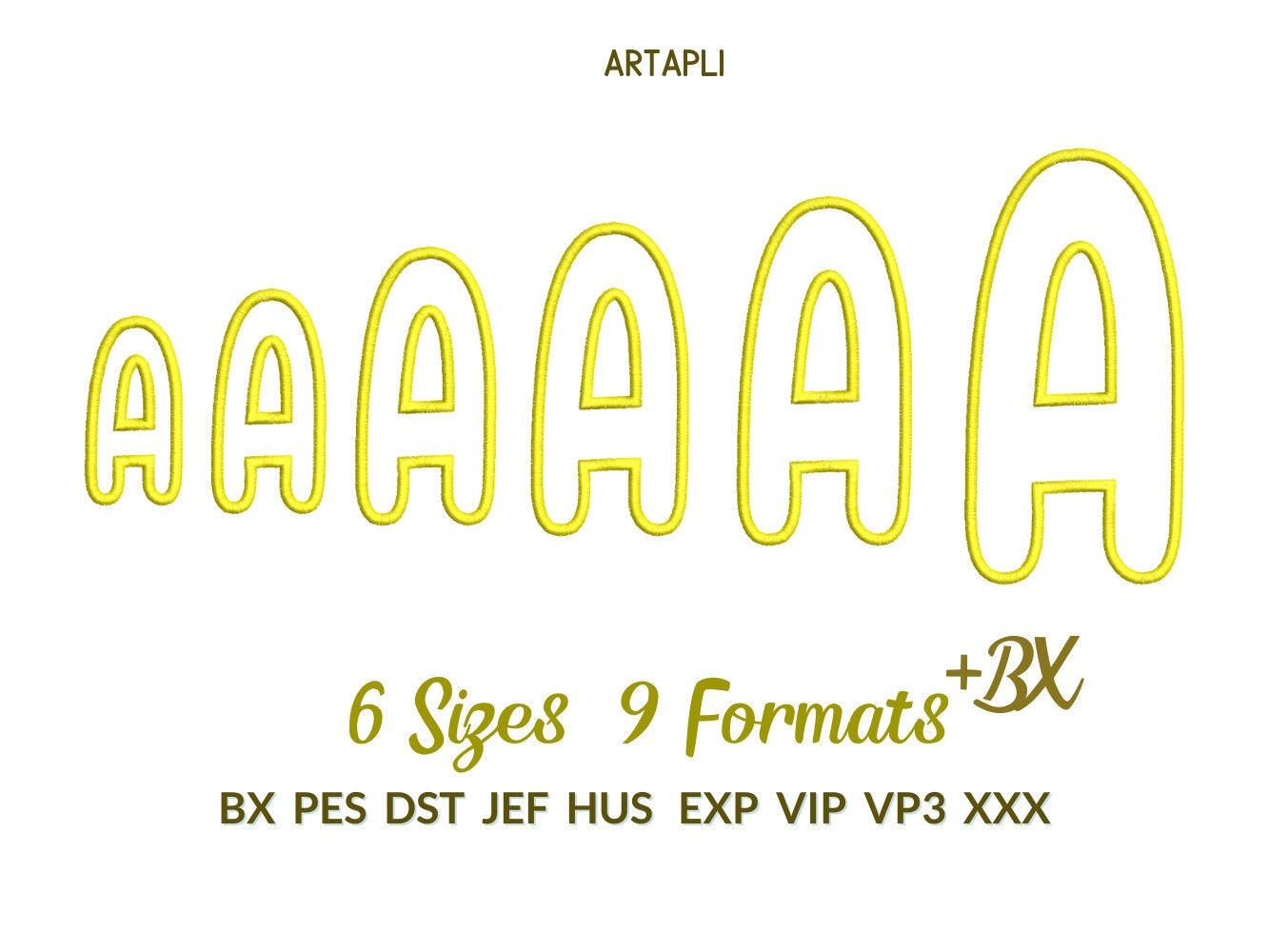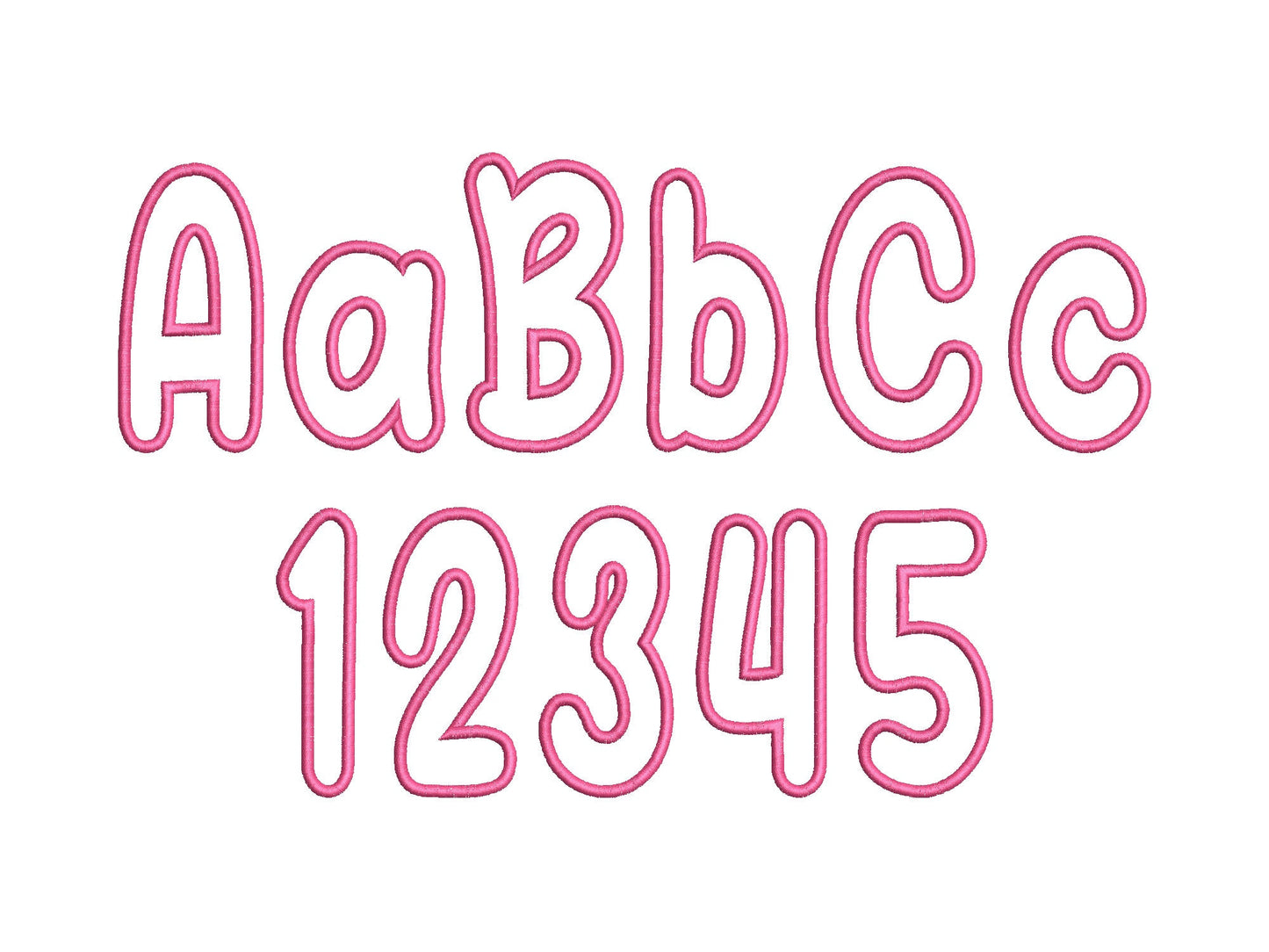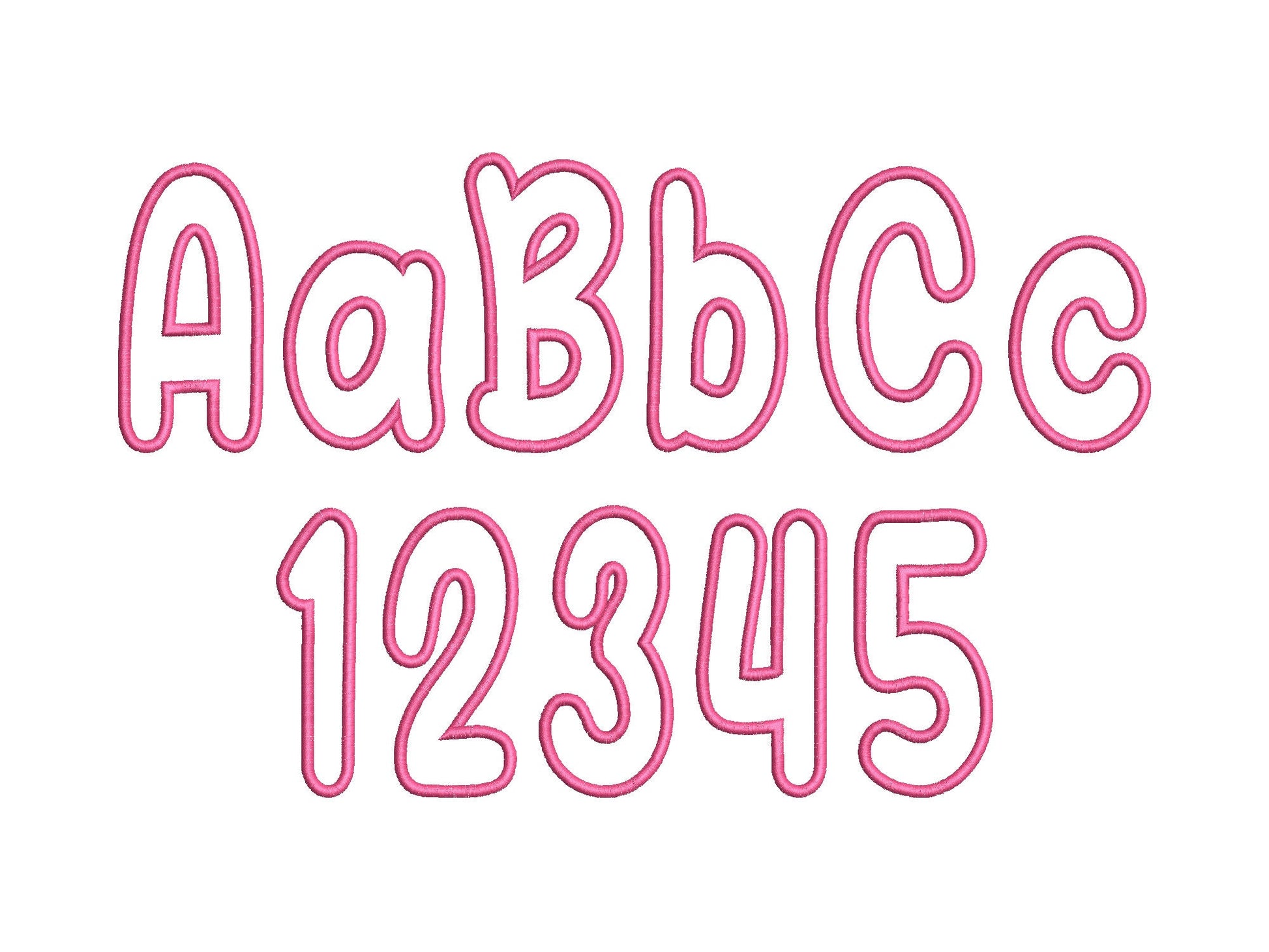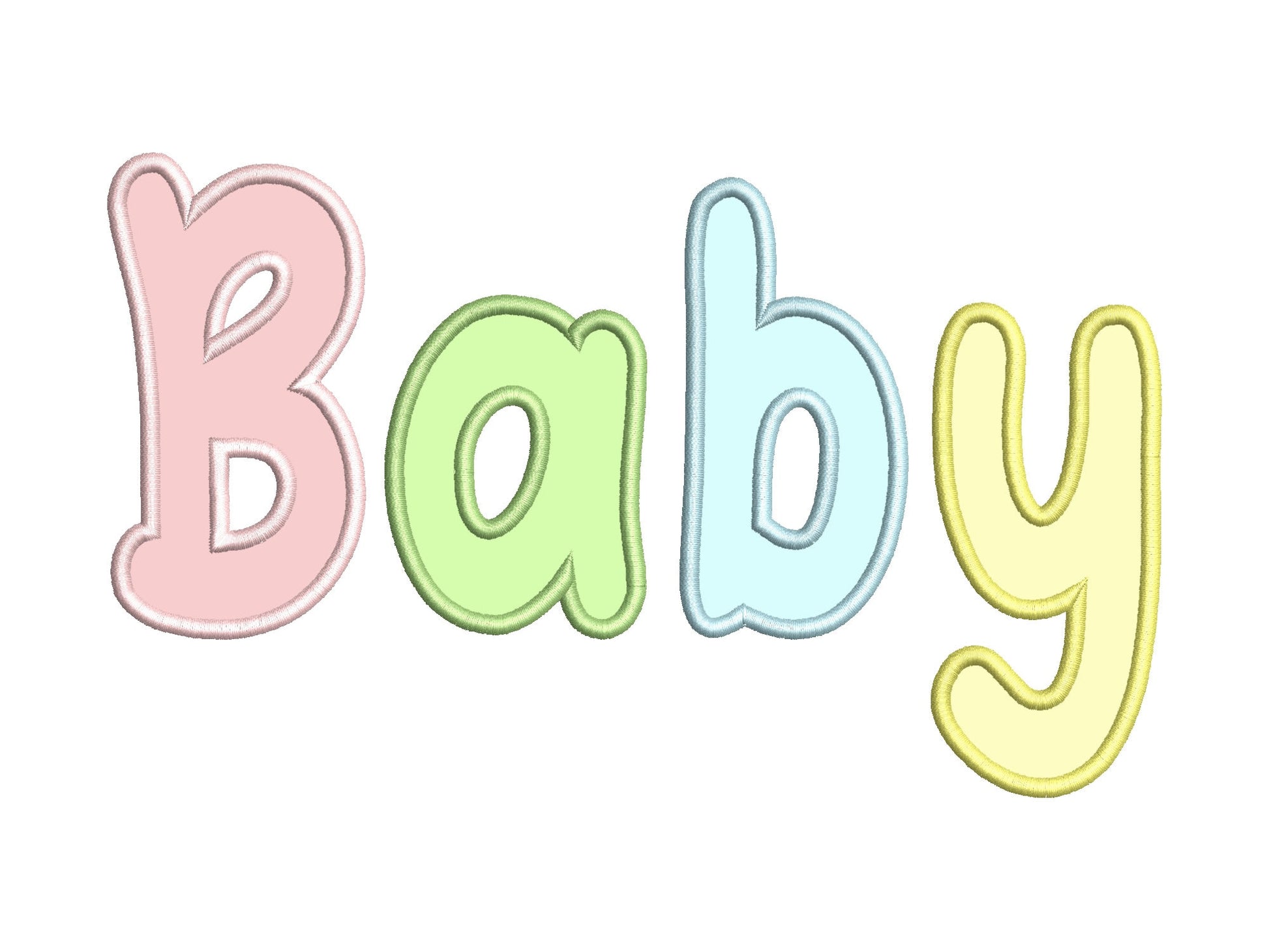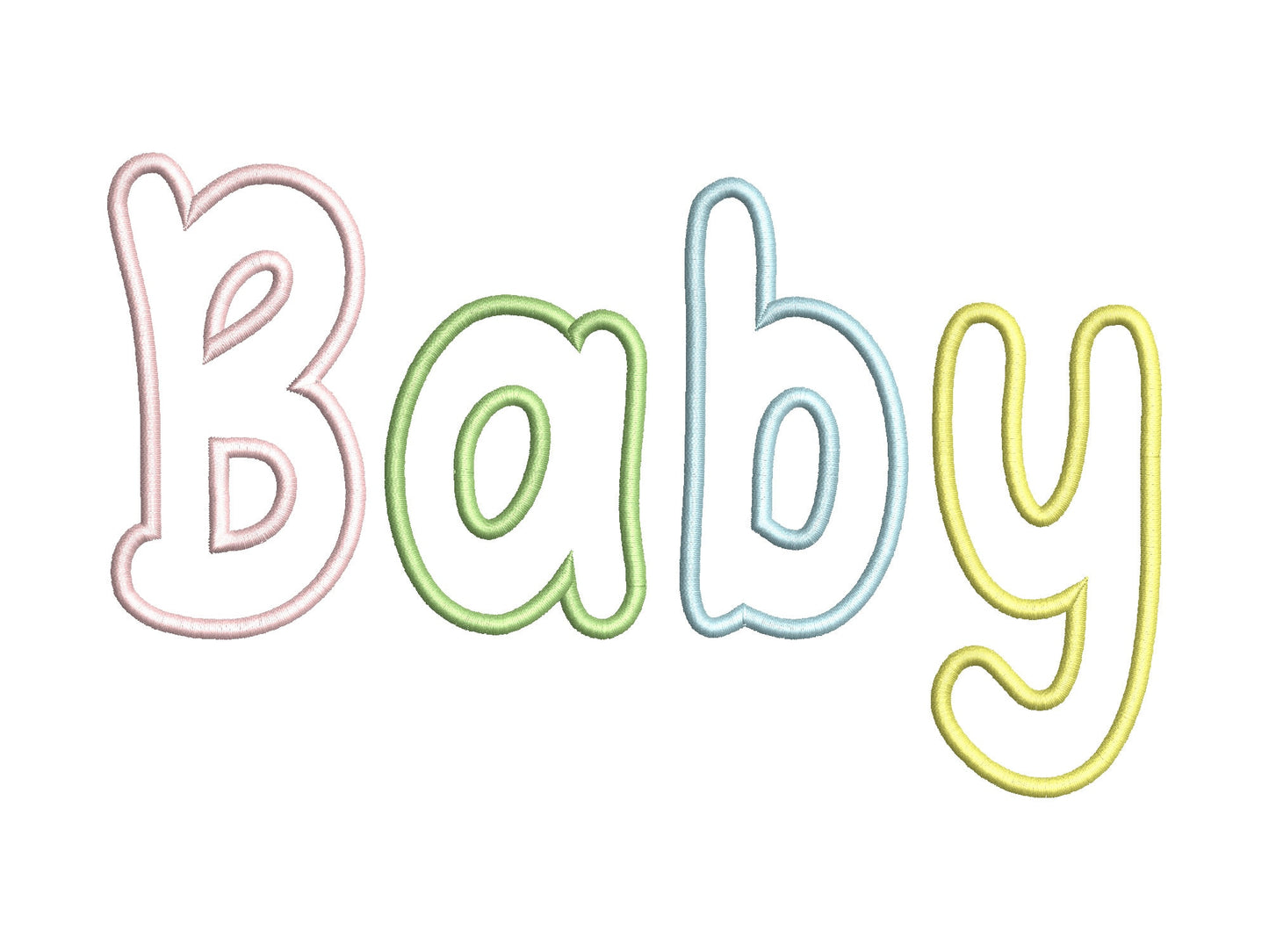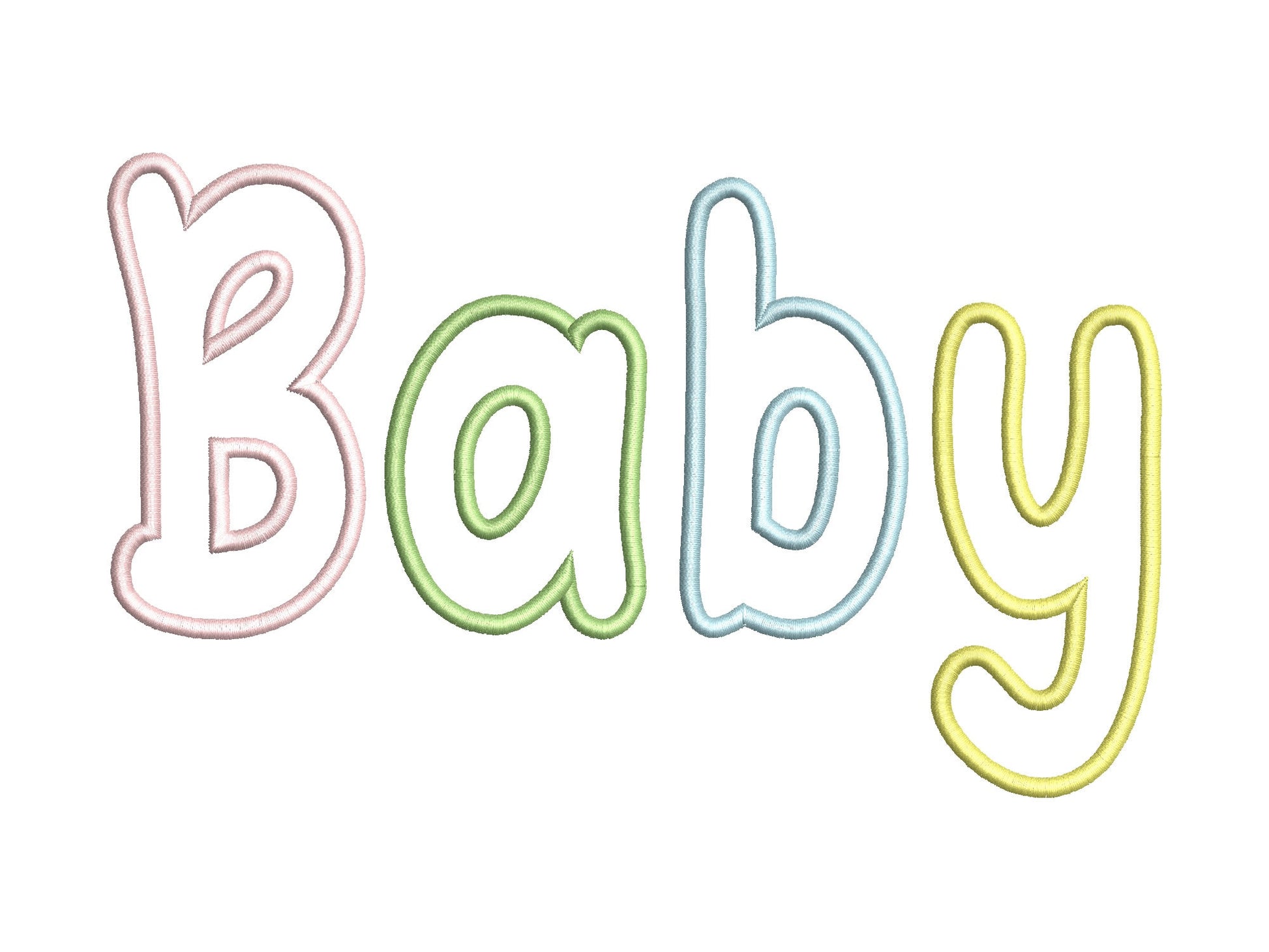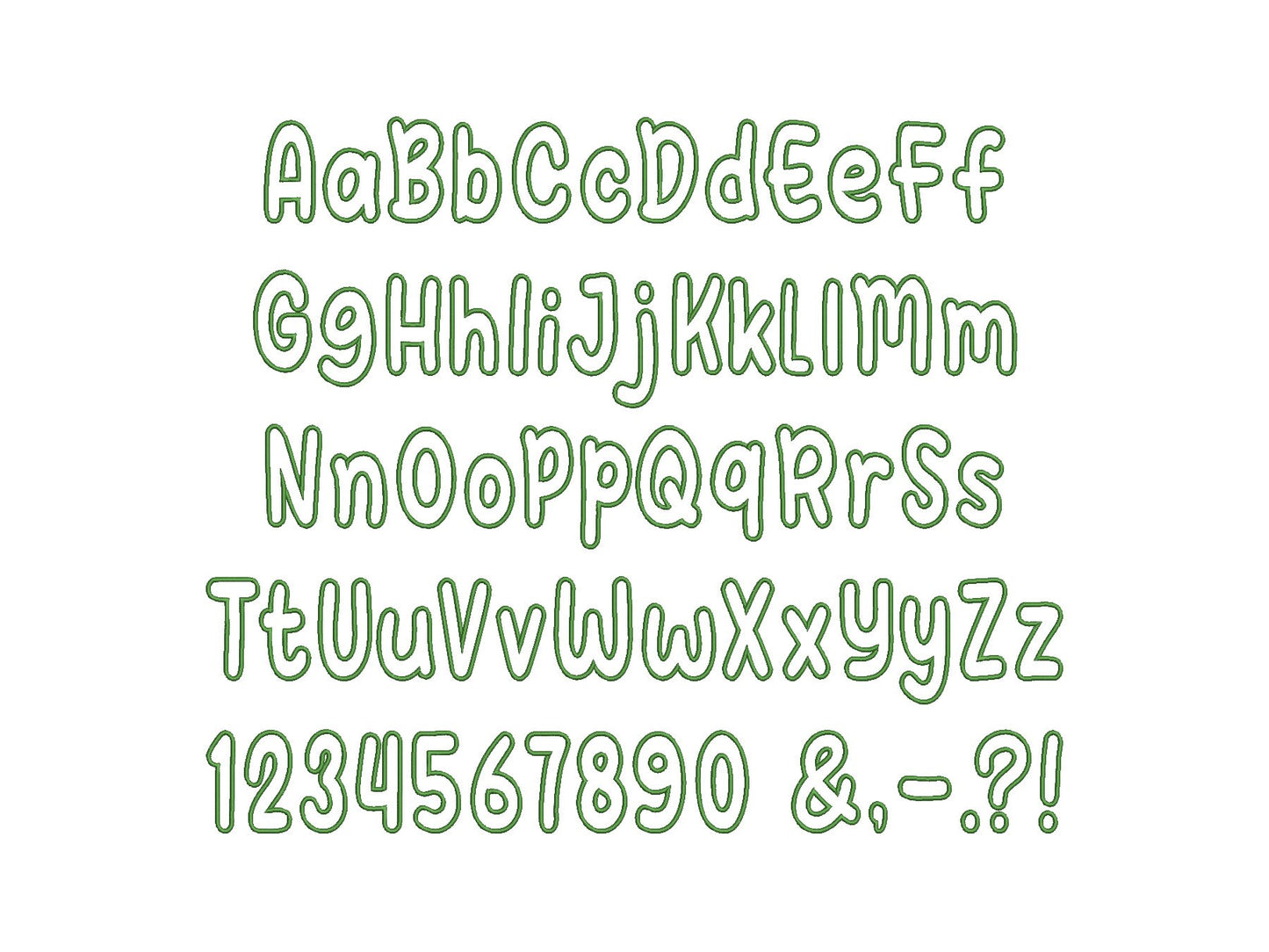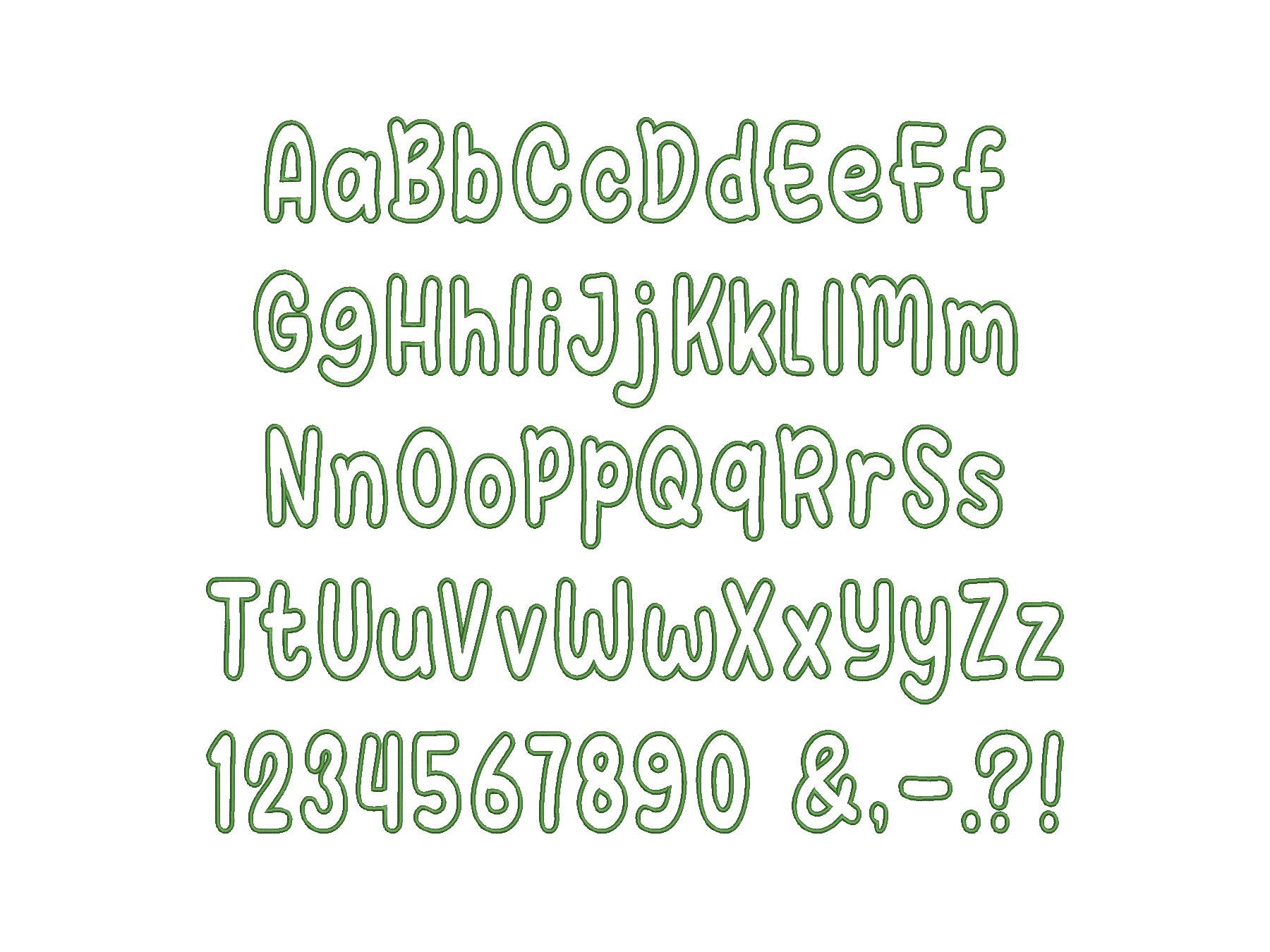
Big Baby Font Applique
Uppercase and lowercase letters, numbers 0 to 9 and punctuation. Six sizes: 2.5, 3, 3.5, 4, 5 and 6 inches.
- Big baby applique font
- Uppercase, lowercase, numbers 0 to 9, punctuation
- 6 sizes, 2.5 to 6 in